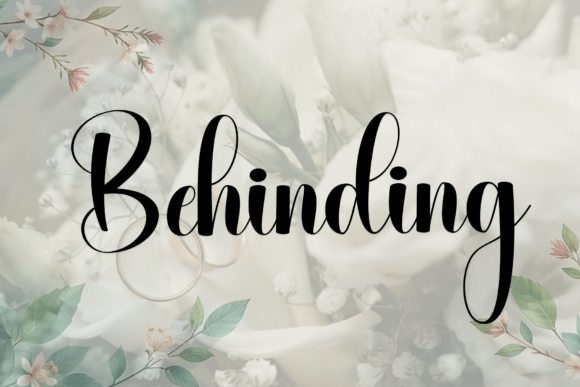
Discover the Elegance of Behinding Font: A Beautifully Flowing Script Font
Are you looking for a font that exudes charm and sophistication? Look no further than Behinding Font, a stunning script font that is sure to elevate your designs to the next level. With its smooth curves and handwritten feel, Behinding is perfect for a variety of applications, from wedding invitations and personal branding to elegant packaging and romantic quotes.
What is Behinding Font?
Behinding Font is a beautifully designed script font that features smooth, flowing curves and a handwritten feel. Its elegant and sophisticated design makes it perfect for a variety of uses, including wedding invitations, personal branding, and elegant packaging. The font is designed to radiate charm and sophistication, making it ideal for designers who want to add a touch of elegance to their work.
Characteristics of Behinding Font
So, what makes Behinding Font so special? Here are just a few of its key characteristics:
- Smooth curves: Behinding Font features smooth, flowing curves that give it a elegant and sophisticated feel.
- Handwritten feel: The font has a handwritten feel that makes it perfect for personal and romantic applications.
- Charming and sophisticated: Behinding Font is designed to radiate charm and sophistication, making it perfect for high-end designs.
Uses for Behinding Font
Behinding Font is a versatile font that can be used for a variety of applications. Here are just a few ideas:
- Wedding invitations: Behinding Font is perfect for wedding invitations, with its elegant and sophisticated design.
- Personal branding: The font is also great for personal branding, as it adds a touch of elegance and sophistication to any design.
- Elegant packaging: Behinding Font is ideal for elegant packaging, with its smooth curves and handwritten feel.
- Romantic quotes: The font is also perfect for romantic quotes, with its charming and sophisticated design.
Why Choose Behinding Font?
So, why choose Behinding Font over other fonts? Here are just a few reasons:
- Unique design: Behinding Font has a unique design that sets it apart from other fonts.
- Elegant and sophisticated: The font is designed to radiate elegance and sophistication, making it perfect for high-end designs.
- Versatile: Behinding Font is a versatile font that can be used for a variety of applications.
Tips for Using Behinding Font
Here are a few tips for using Behinding Font:
- Use it sparingly: Behinding Font is a elegant and sophisticated font, so use it sparingly to add a touch of elegance to your designs.
- Pair it with other fonts: The font pairs well with other fonts, so don’t be afraid to experiment with different combinations.
- Use it for headlines: Behinding Font is perfect for headlines, with its smooth curves and handwritten feel.
In conclusion, Behinding Font is a beautifully flowing script font that radiates charm and sophistication. With its smooth curves and handwritten feel, itβs perfect for wedding invitations, personal branding, elegant packaging, and romantic quotes. Whether youβre a designer or a DIY enthusiast, Behinding Font is a great choice for anyone looking to add a touch of elegance to their work.
- What is Behinding Font? Behinding Font is a beautifully designed script font that features smooth, flowing curves and a handwritten feel.
- What is Behinding Font used for? Behinding Font is perfect for wedding invitations, personal branding, elegant packaging, and romantic quotes.
- Is Behinding Font easy to read? Yes, Behinding Font is easy to read, with its smooth curves and clear design.